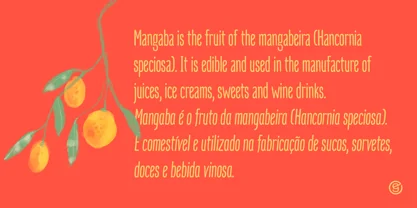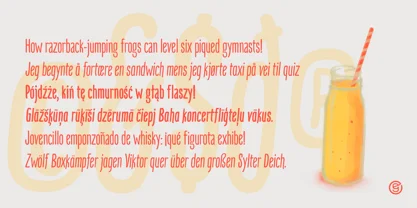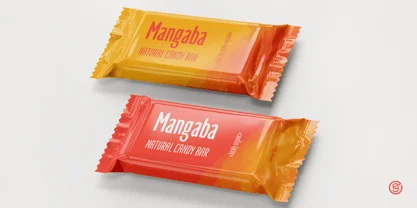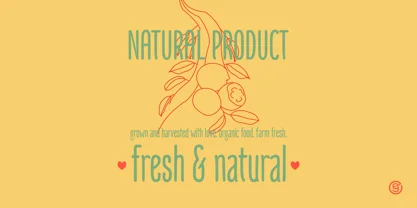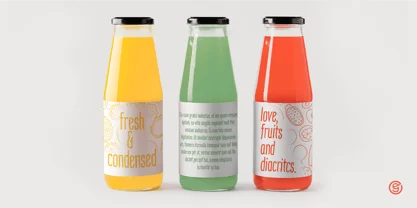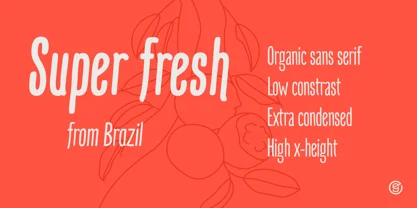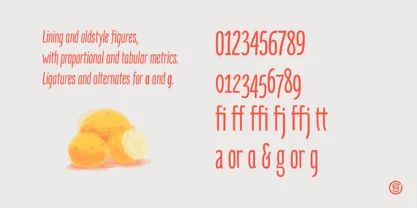
Mangaba Pro Font
Mangaba is a condensed font designed to create a hand-drawn feel for texts in small spaces. It is great for packaging and labels as well as titles and other short texts. It has low contrast and high x-height. Blend well with other hand drawn, cursive and san serif fonts. Includes Latin characters, punctuation, diacritics and old-style numbers. It is a font inspired by the Brazilian cerrado, a region similar to the savannah, with low trees, with twisted trunks and exotic fruits, such as Mangaba. ?Mangaba Pro is perfect for bringing a natural and exotic touch to logos, packaging and even texts on social networks.